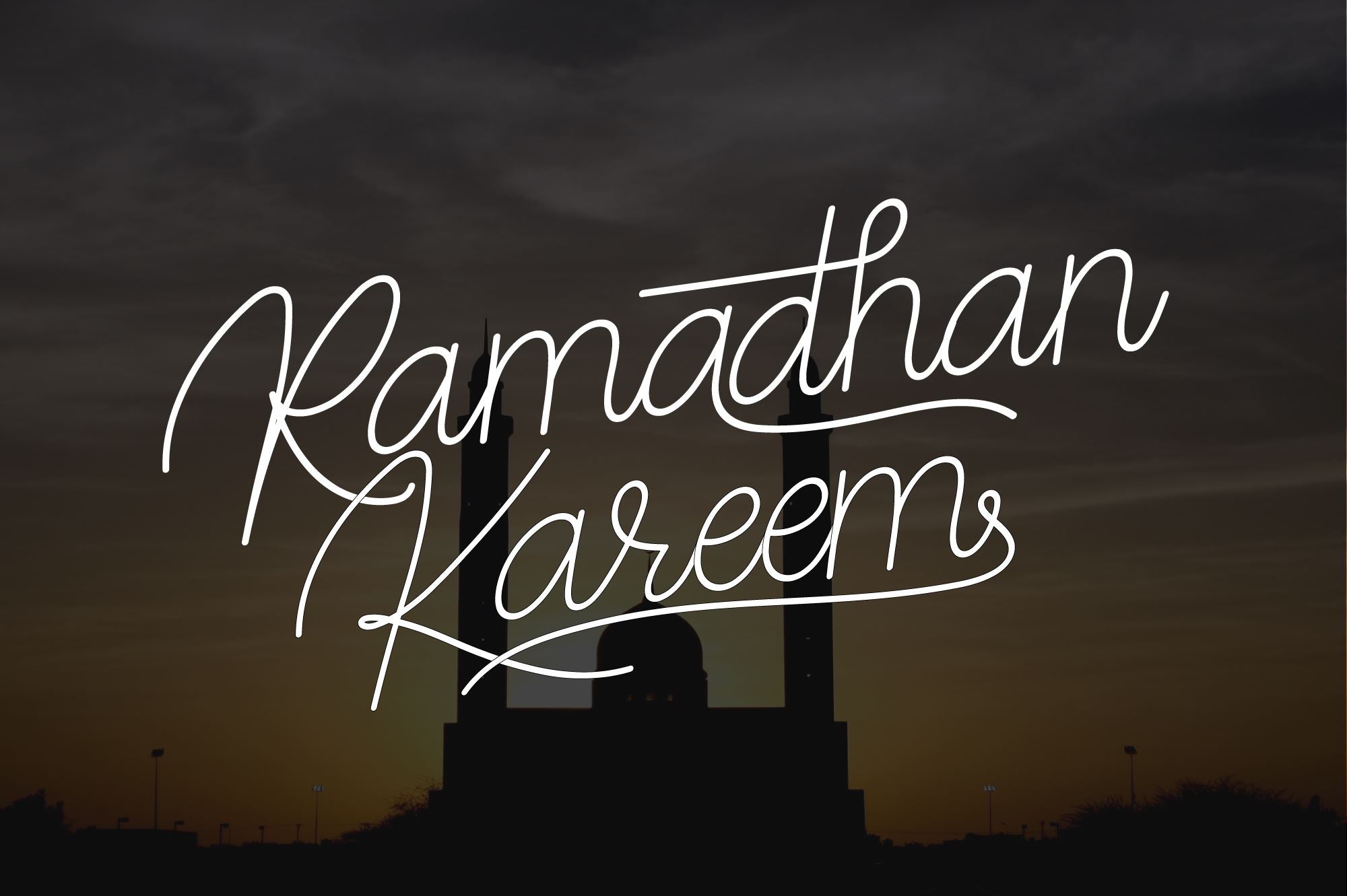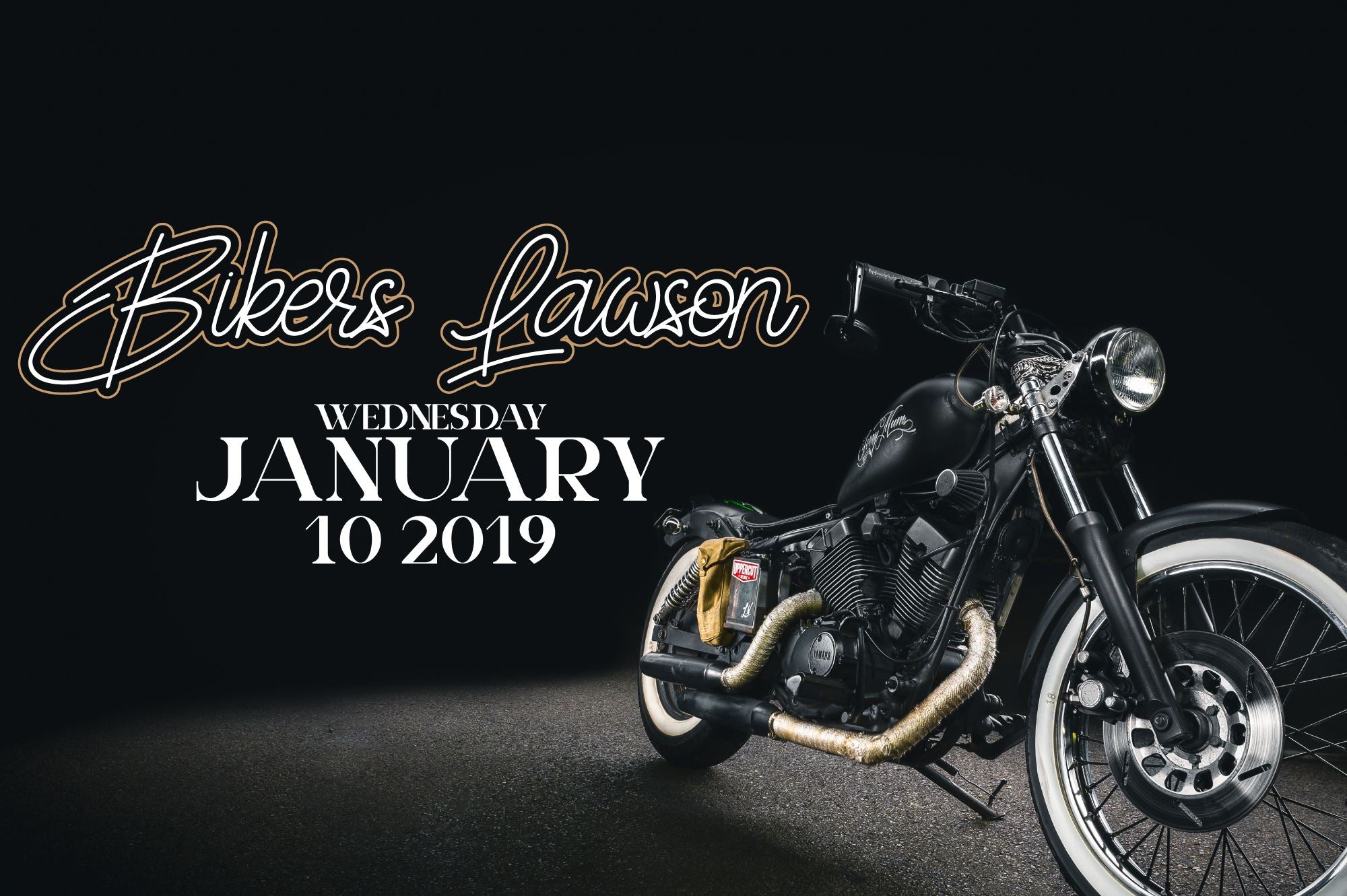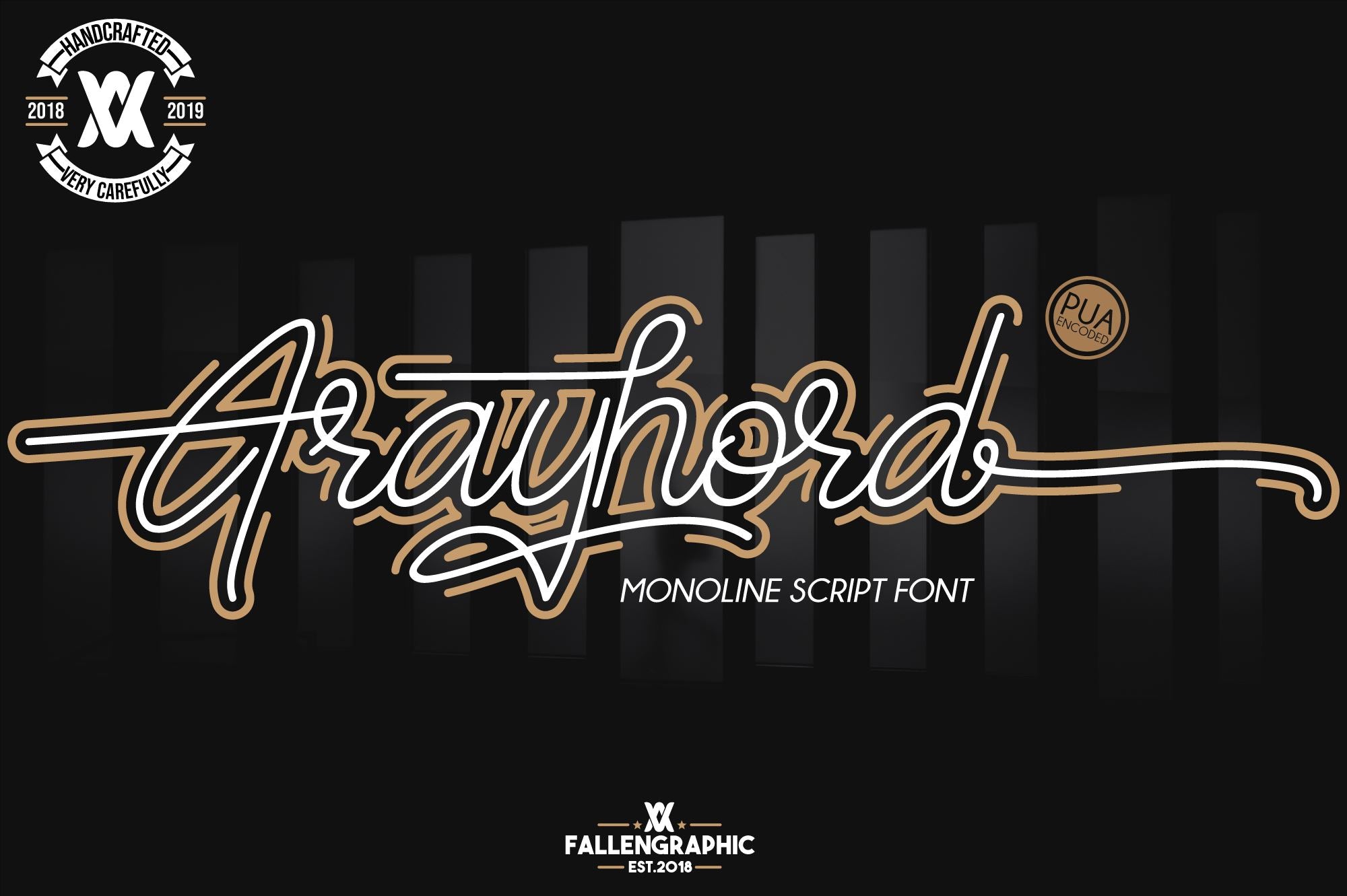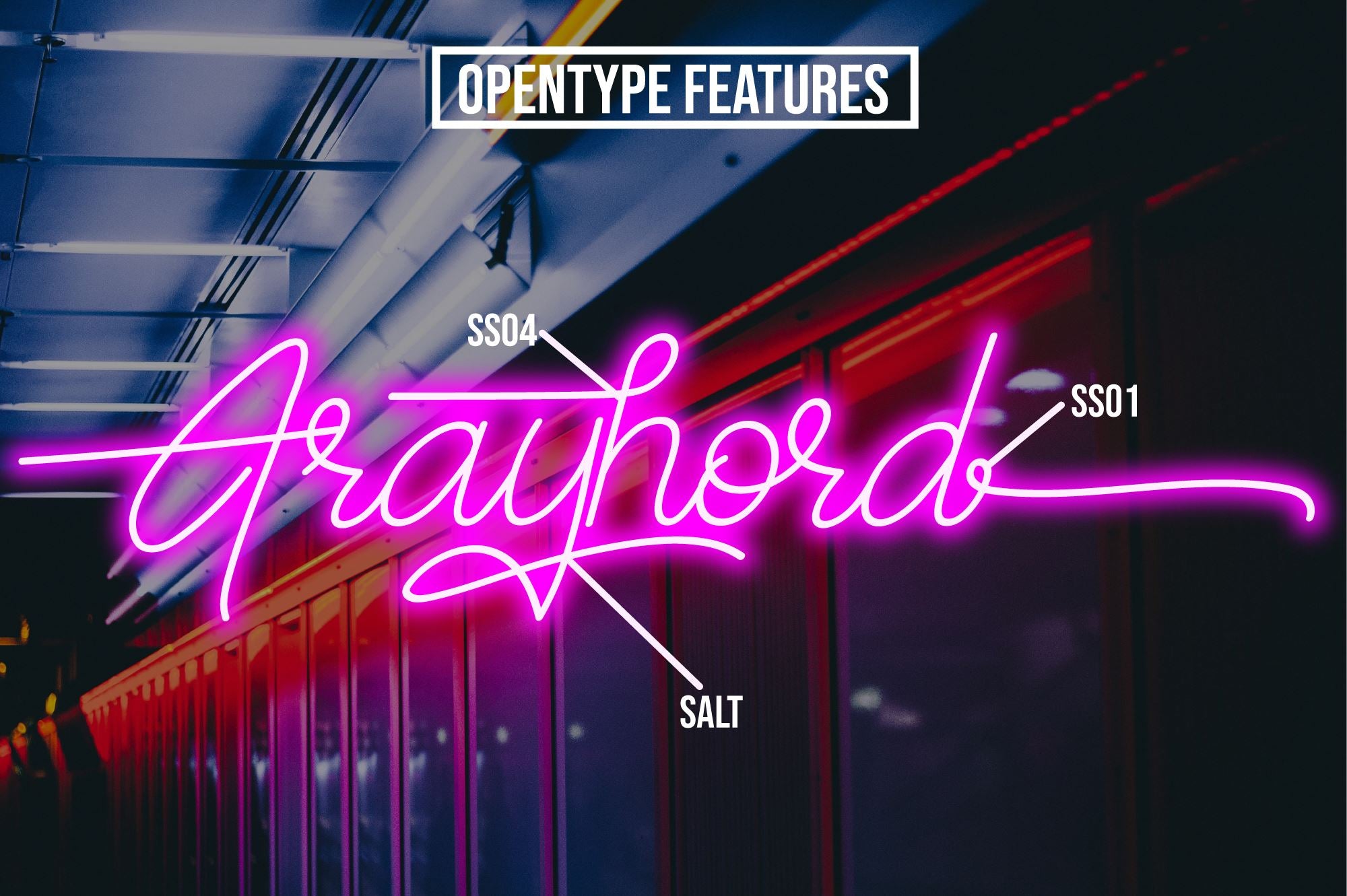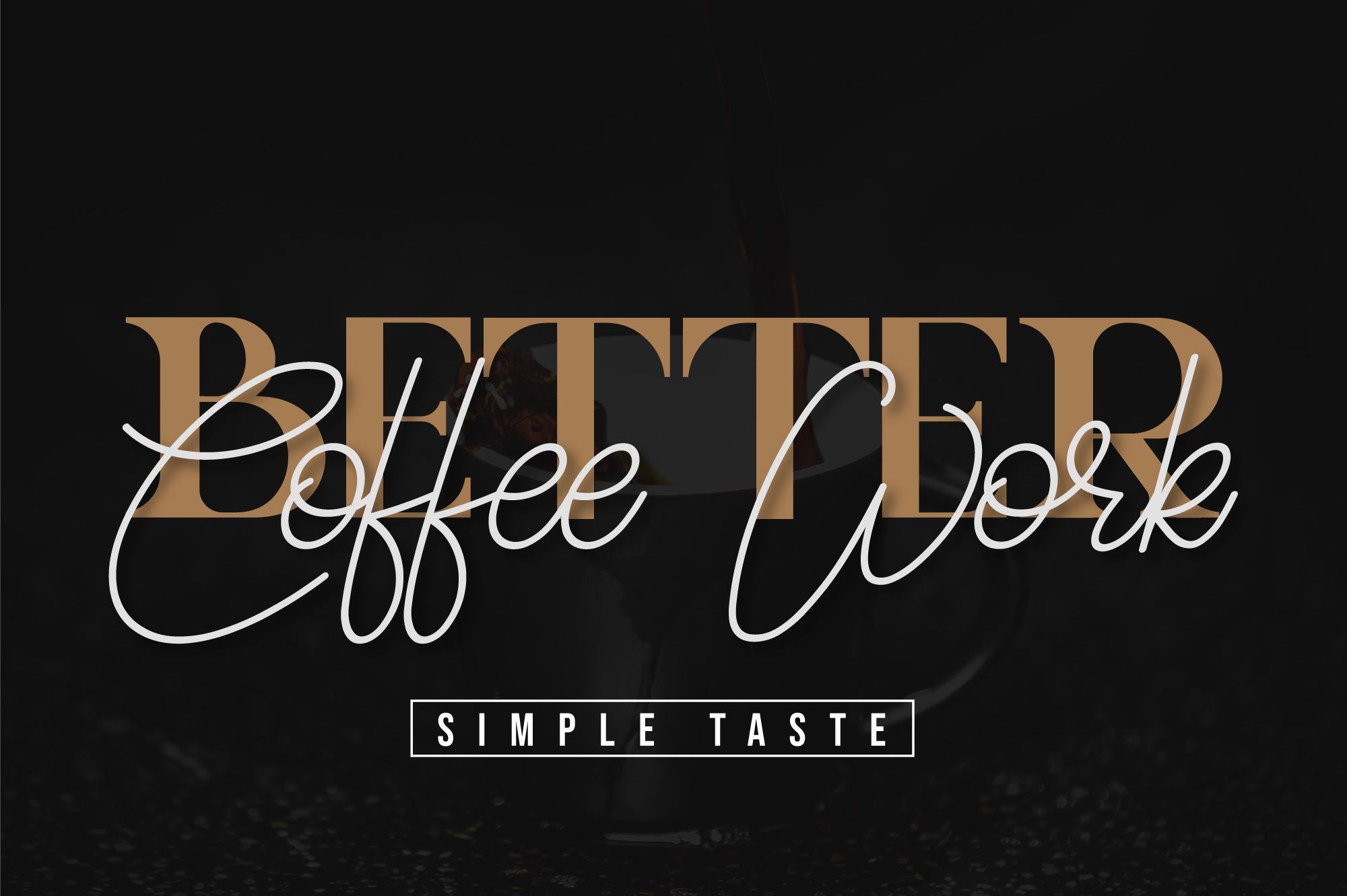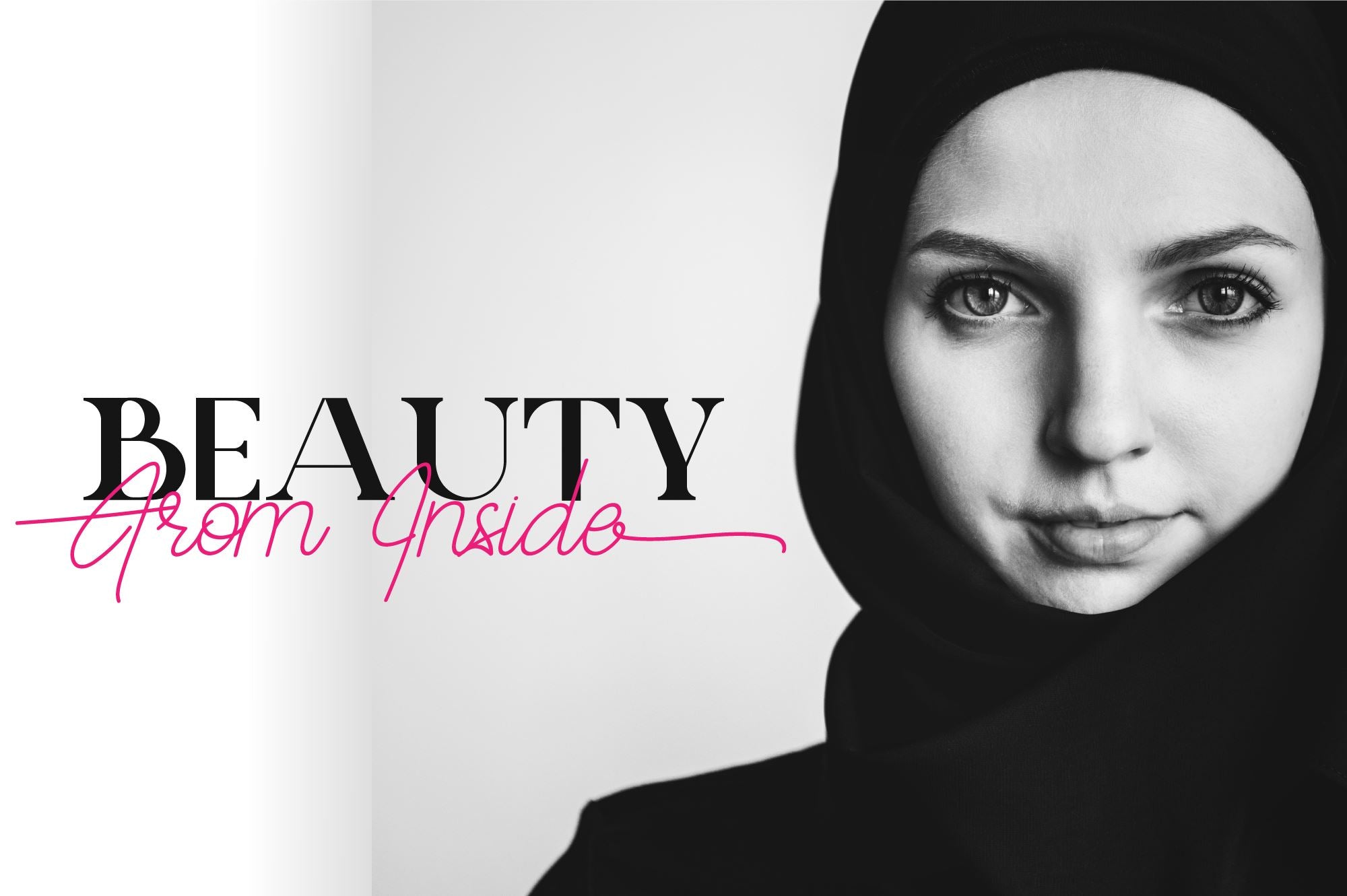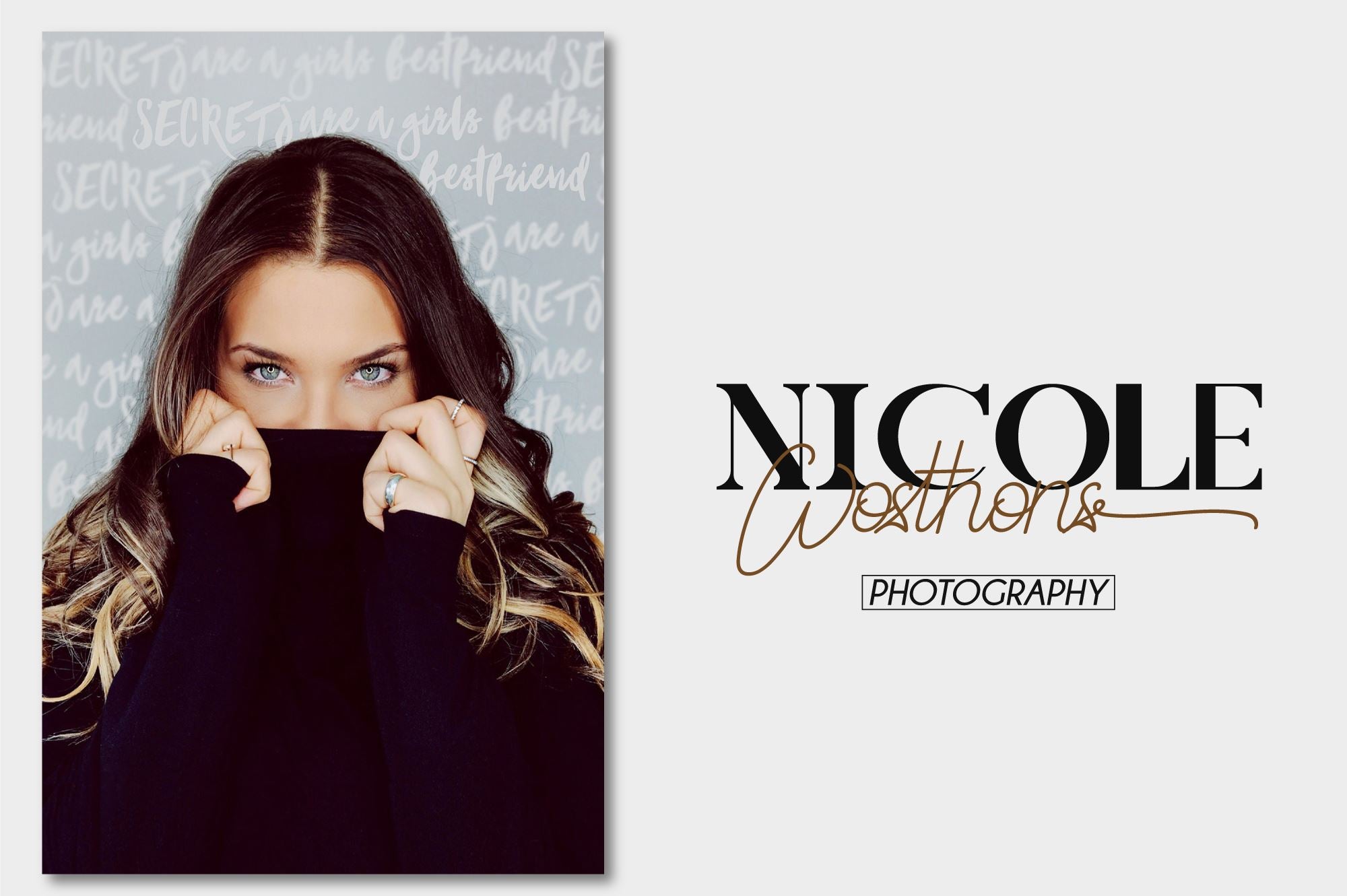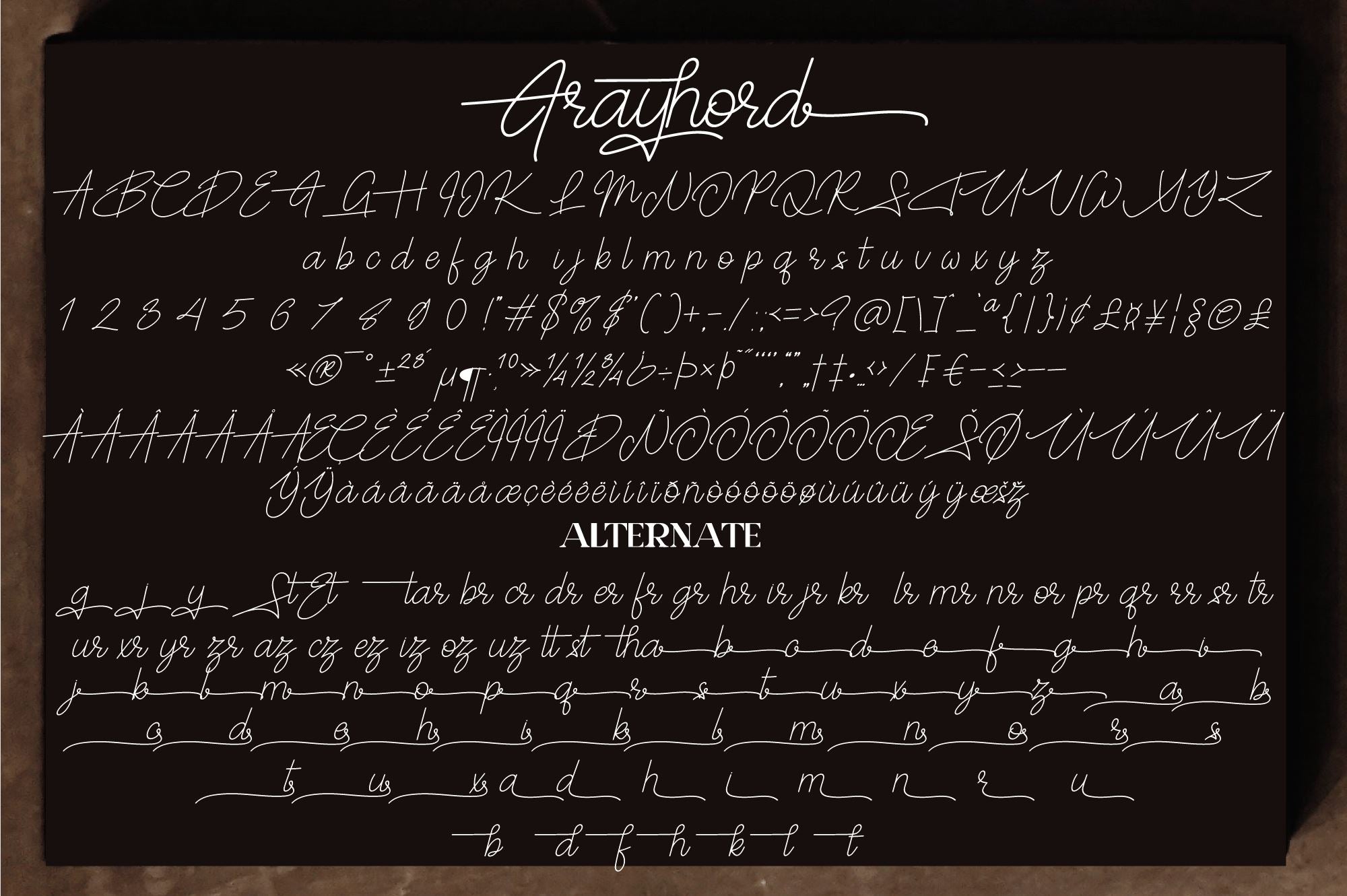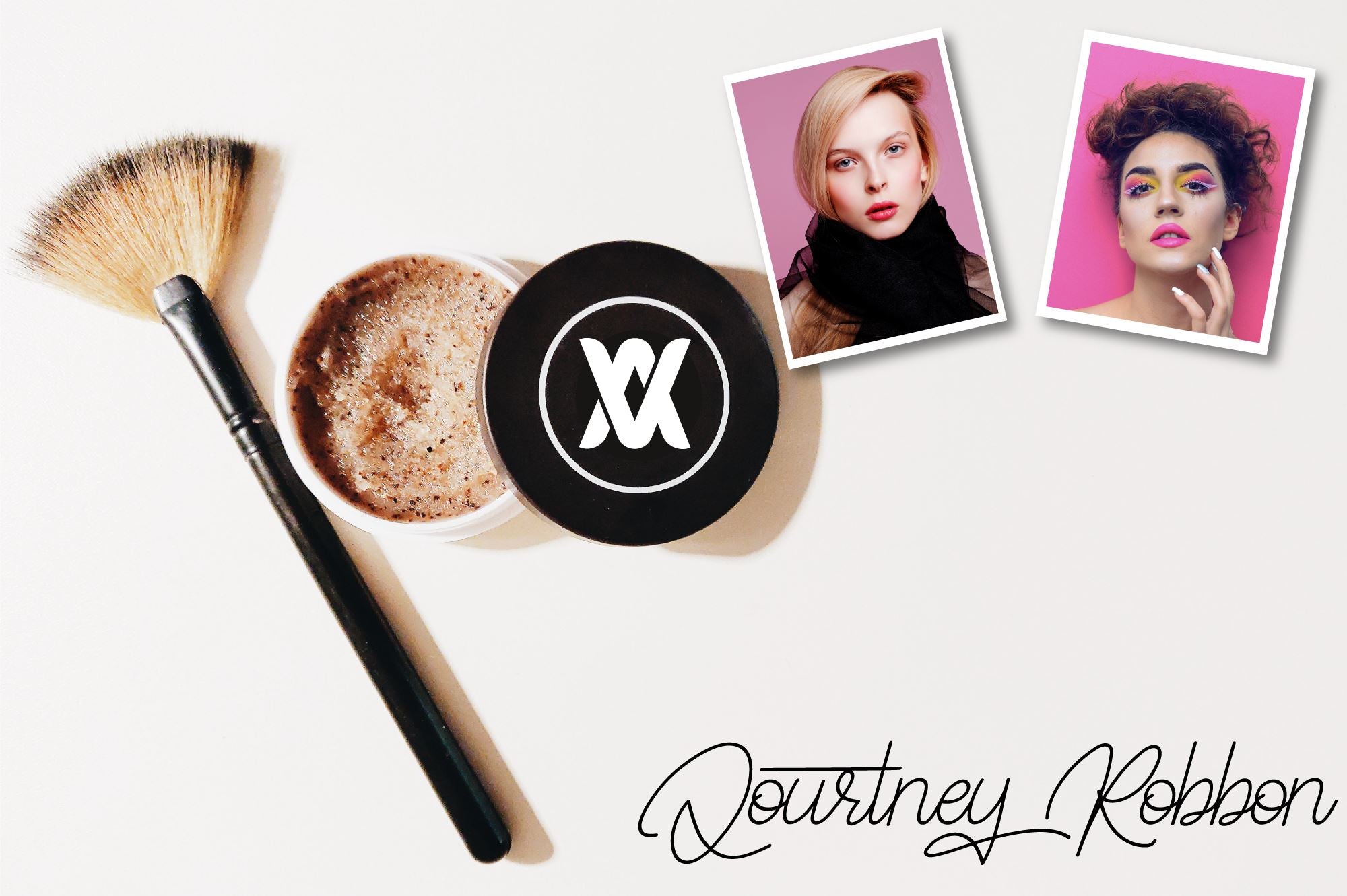
Frayhord Monoline Script
About Frayhord Monoline Script
Frayhord Monoline Script is a modern monoline script font. It has a natural feel and is perfect for signatures, branding, and much more! Features : PUA Encoded 100% Acessibility Standard Ligatures Stylistic alternate Stylistic Set SS01-SSO4 If you don’t have a program that supports OpenType features such as Adobe Illustrator and CorelDraw X Versions, you can access all the alternate glyphs using Font Book (Mac) or Character Map (Windows).To Access Alternate Characters Click The Link Below: How to access alternates in Adobe illustrator CS www.youtube.com/watch?v=geL0Ye02Ryk How to access alternates in Adobe illustrator CC www.youtube.com/watch?v=V25yiUh8BcE How to access alternates in Ms How to access alternates in Coreldraw X7 www.youtube.com/watch?v=UBVsufJjons How to access alternates in Indesign CS www.youtube.com/watch?v=HgZTCxKG14Q How to access alternates in Adobe Photoshop CC www.youtube.com/watch?v=BYKXl58AdNY If you have any question, don’t hesitate to contact me by email  Thanks and happy designing ???? Thank You for purchase!